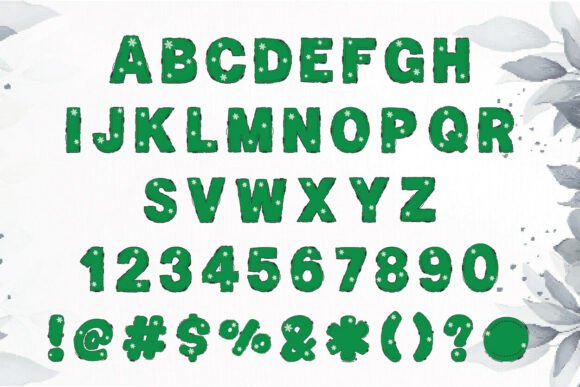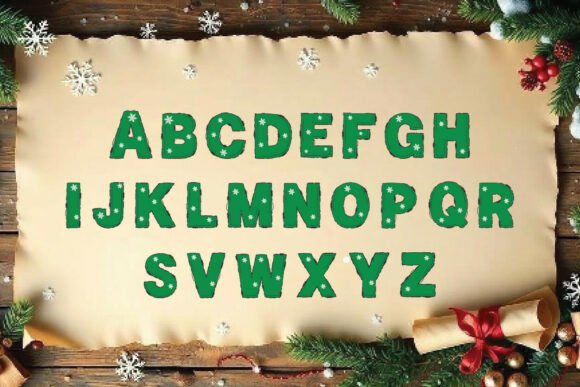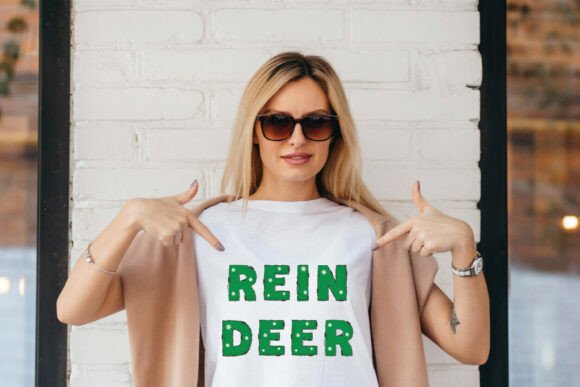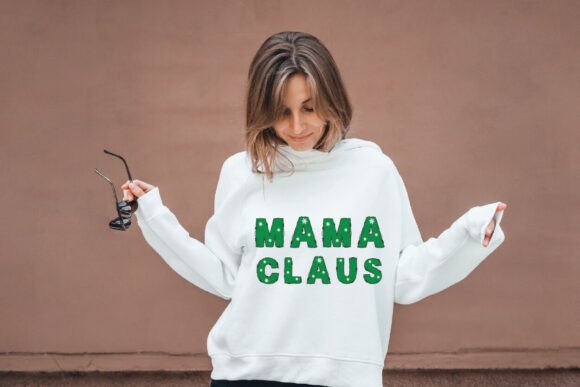
🎄 Christmas Army Font: Elevate Your Holiday Designs with Vibrant Multi-Color Alphabets
Are you looking for a way to add a festive touch to your holiday projects? Look no further than the Christmas Alphabets Bundle, a multi-color font package that brings vibrant, green-themed letters to your designs. This comprehensive bundle is perfect for designers, crafters, and anyone looking to create eye-catching holiday cards, invitations, gift tags, posters, and digital crafts.
- Multi-color alphabet letters A–Z, perfect for creating custom holiday designs
This Christmas army font is ideal for a wide range of holiday-themed projects, including:
- Gift tags and wrapping paper
- Digital crafts and scrapbooking
Whether you’re a designer, crafter, or DIY enthusiast, this font bundle provides the perfect way to add a playful, magical touch to your Christmas designs.
- Add a festive touch to your holiday designs
- Create custom, multi-color text and graphics
Tips and Ideas for Using the Christmas Alphabets Bundle
Here are a few ideas to get you started:
- Create custom holiday cards and invitations with multi-color text and graphics
- Design eye-catching posters and flyers for holiday events and promotions
- Add a festive touch to your digital crafts and scrapbooking projects
- Use the font bundle to create custom gift tags and wrapping paper